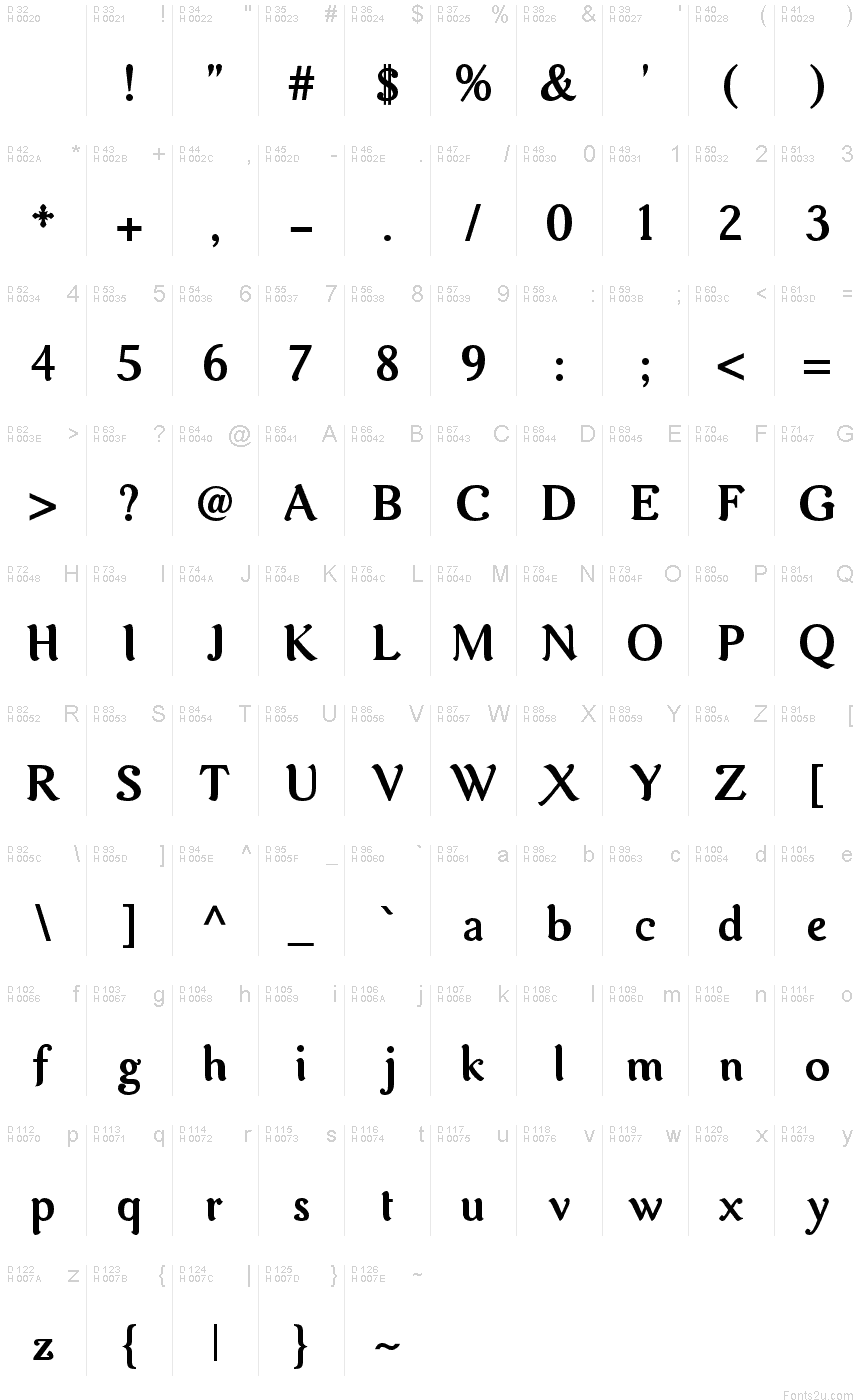
Aurelis ADF No2 Std Bold, designed by Hirwen Harendal of Arkandis Digital Foundry, is a free high-contrast serif font with a grand, slightly theatrical bearing. Broad capitals, swelling curves, sharp wedge serifs, and lively tapered details give the lettering an old-style elegance that never feels stiff.
It can create a richly dressed title for historical publishing or literary events, and the same sculpted forms suit wine labels and heritage-minded hospitality branding. Among these uses, book covers are its strongest setting: the pronounced thick-thin strokes and distinctive, almost engraved shapes lend an immediate sense of ceremony to formal author names and titles.